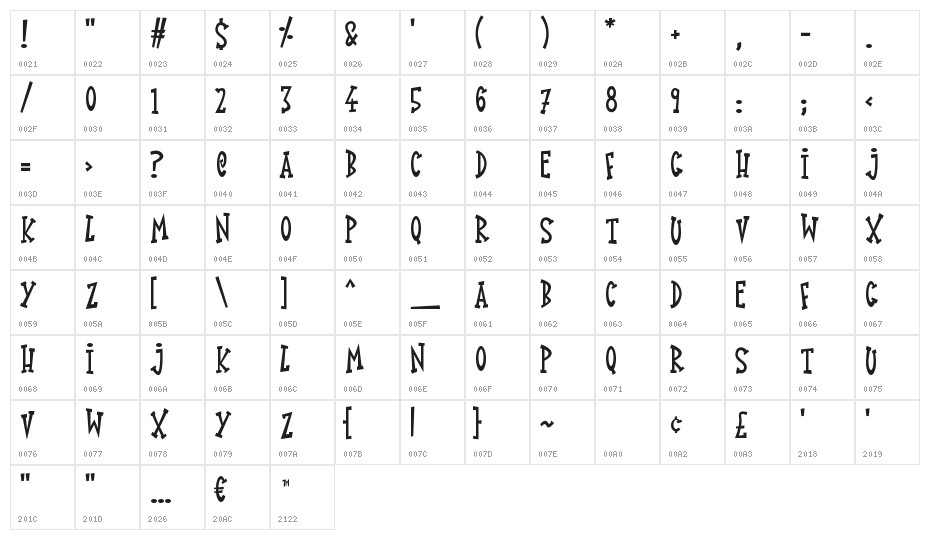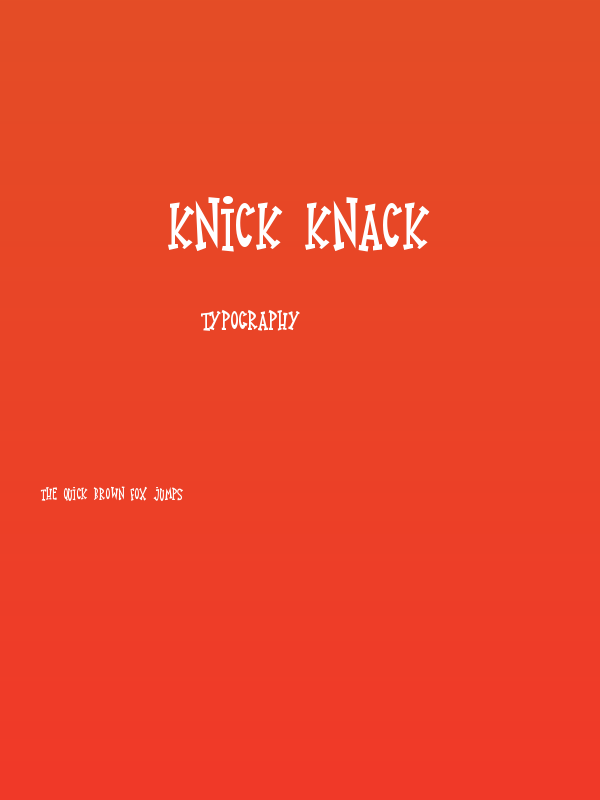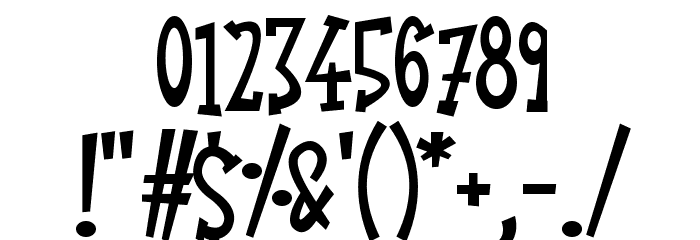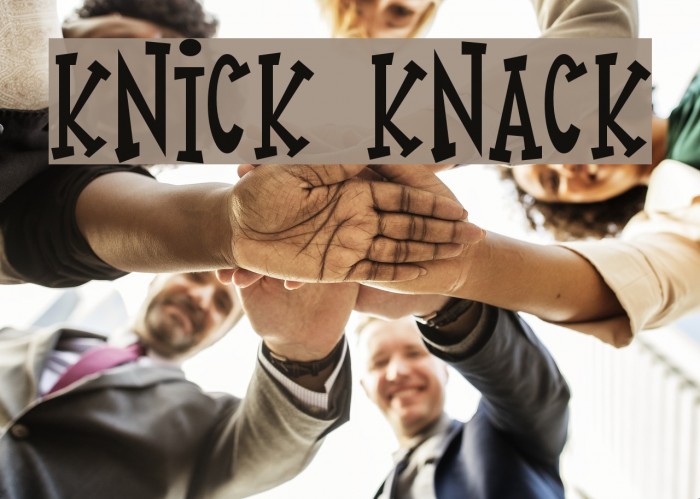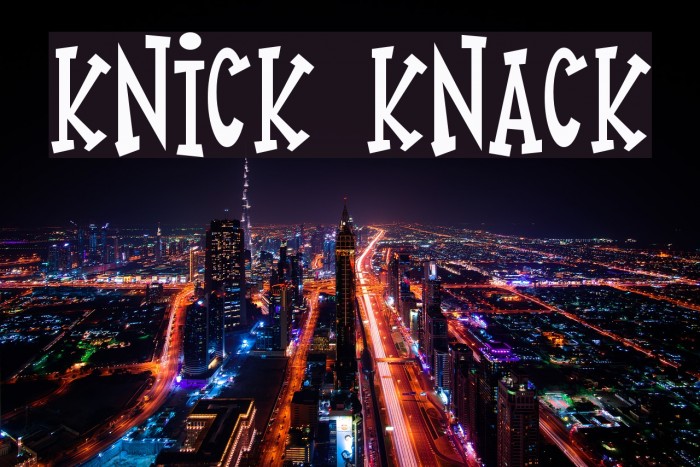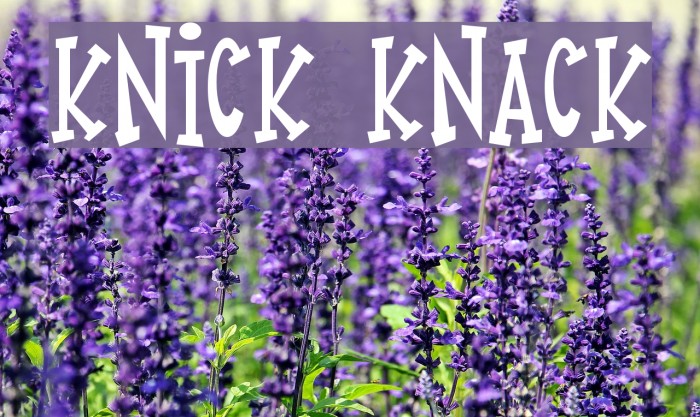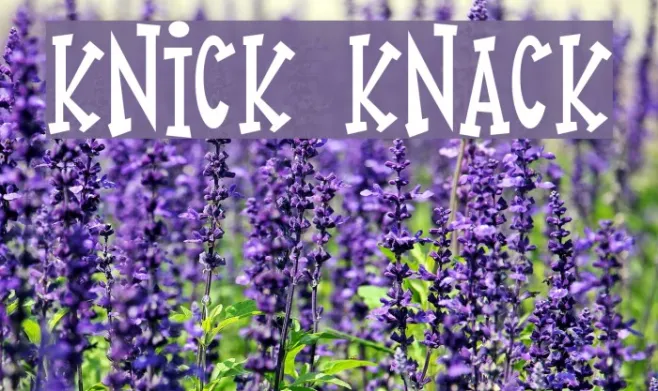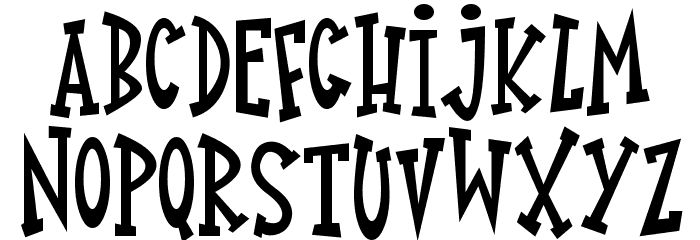
Knick Knack Font
Knick Knack Description
This playful and whimsical font features a unique, hand-drawn style with exaggerated serifs and varying stroke widths. The characters are slightly tilted, giving a dynamic and lively appearance. The uppercase and lowercase letters maintain a consistent style, with the uppercase being more prominent and bold. Numbers and special characters are included, matching the quirky and informal aesthetic. The font's irregular shapes and bold presence make it stand out, ideal for creative and fun projects.
| Overall Style | Whimsical, Playful |